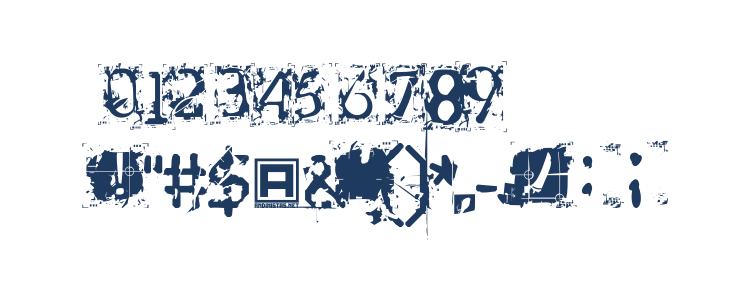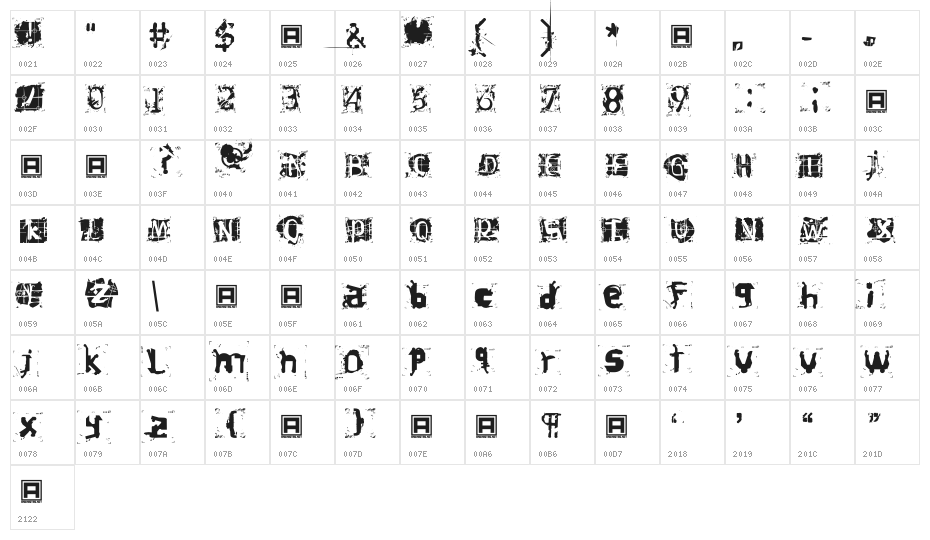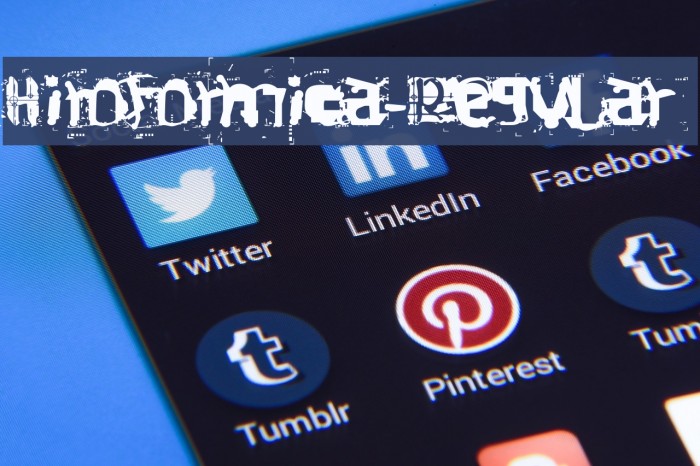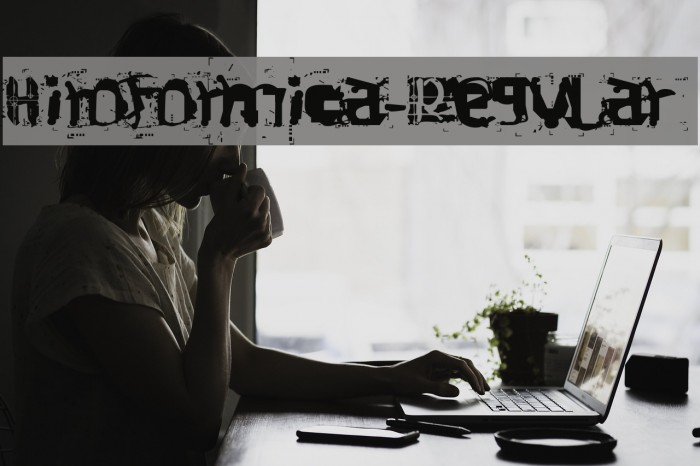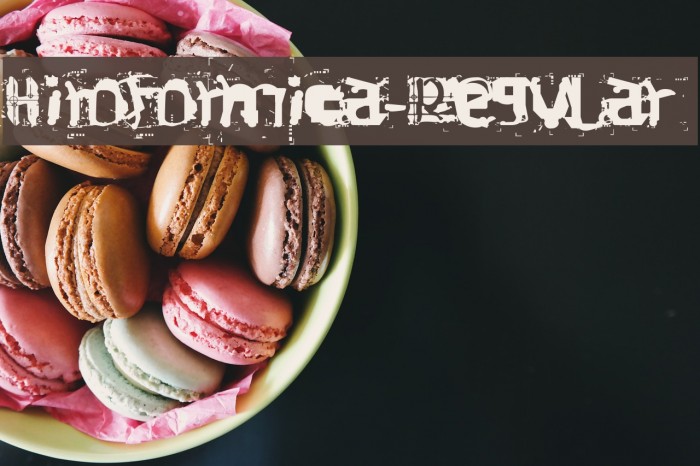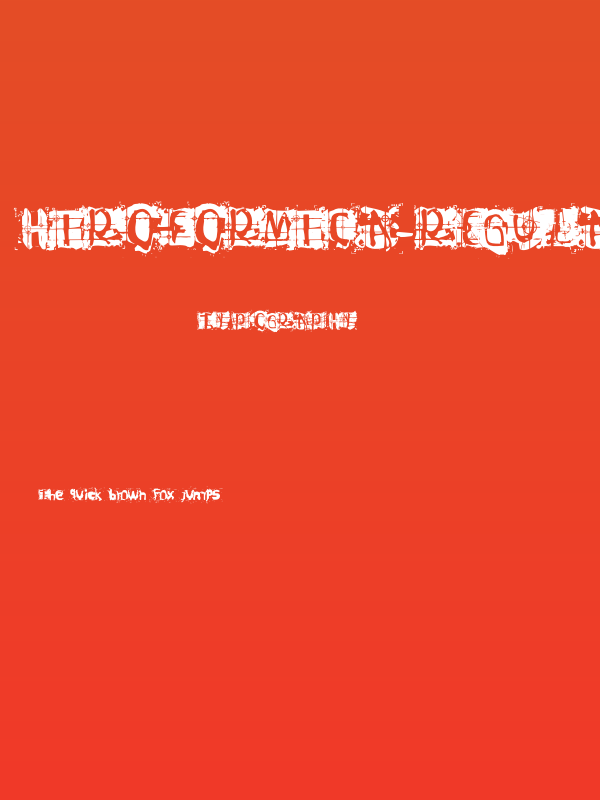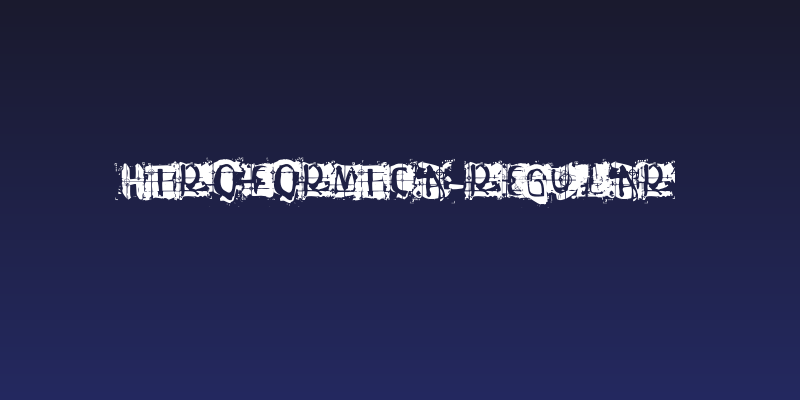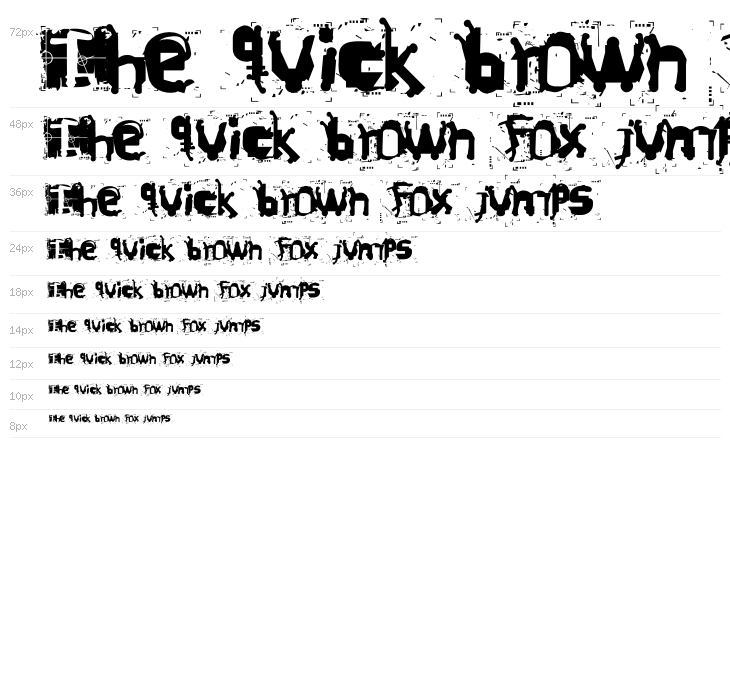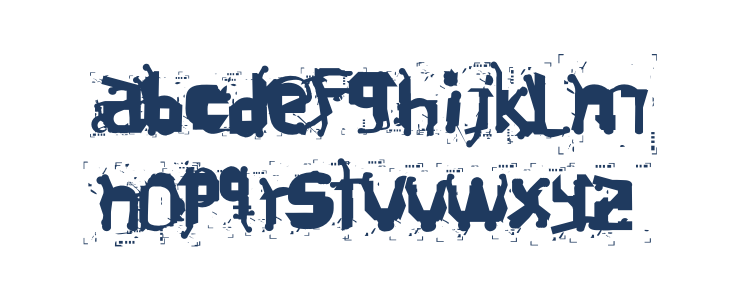
Hiroformica-Regular Font
Hiroformica-Regular Description
This font features a highly distressed and grungy aesthetic, characterized by irregular shapes and rough edges. The letters appear as if they have been eroded or weathered, giving them a chaotic and edgy appearance. The uppercase and lowercase letters maintain a consistent style, with each character exhibiting unique distortions and textures. Numbers and special characters follow the same distressed theme, ensuring a cohesive look across all glyphs. This font is ideal for projects that require a raw, rebellious, or urban feel, making it perfect for music album covers, streetwear branding, or edgy posters.
| Overall Style | Grunge, Urban, Distressed |